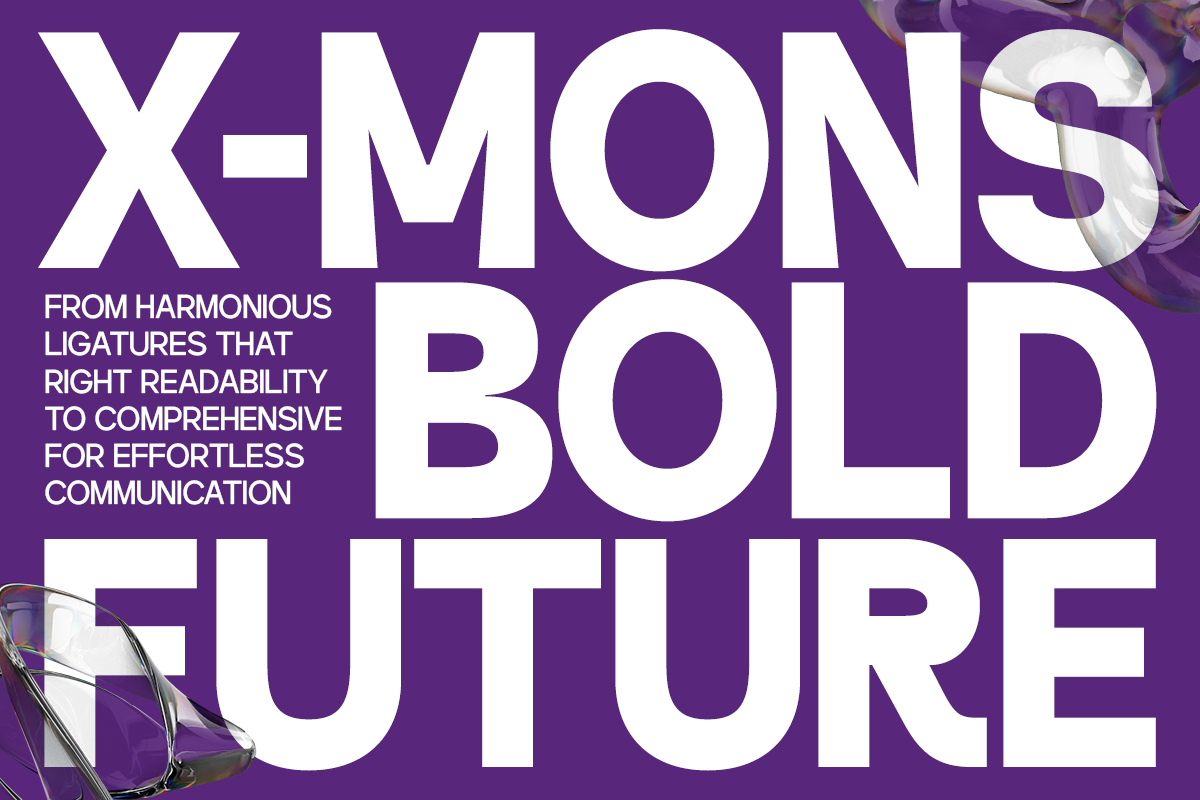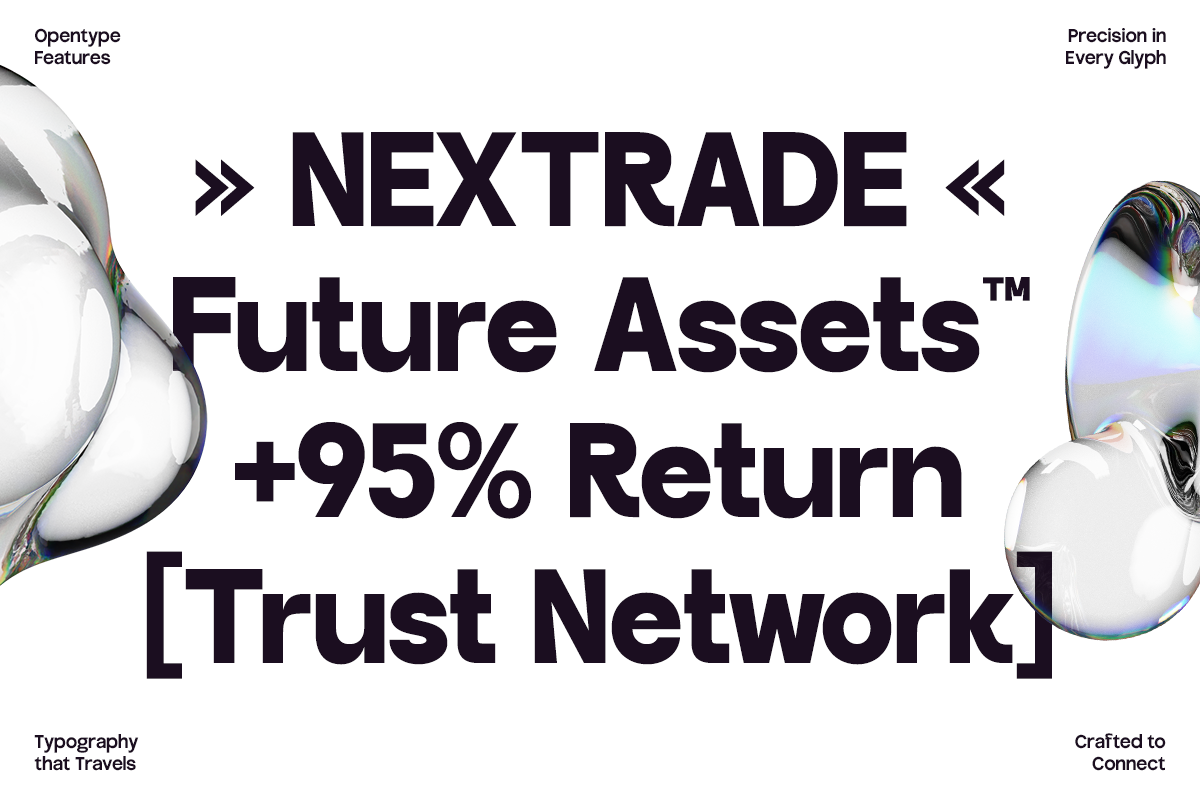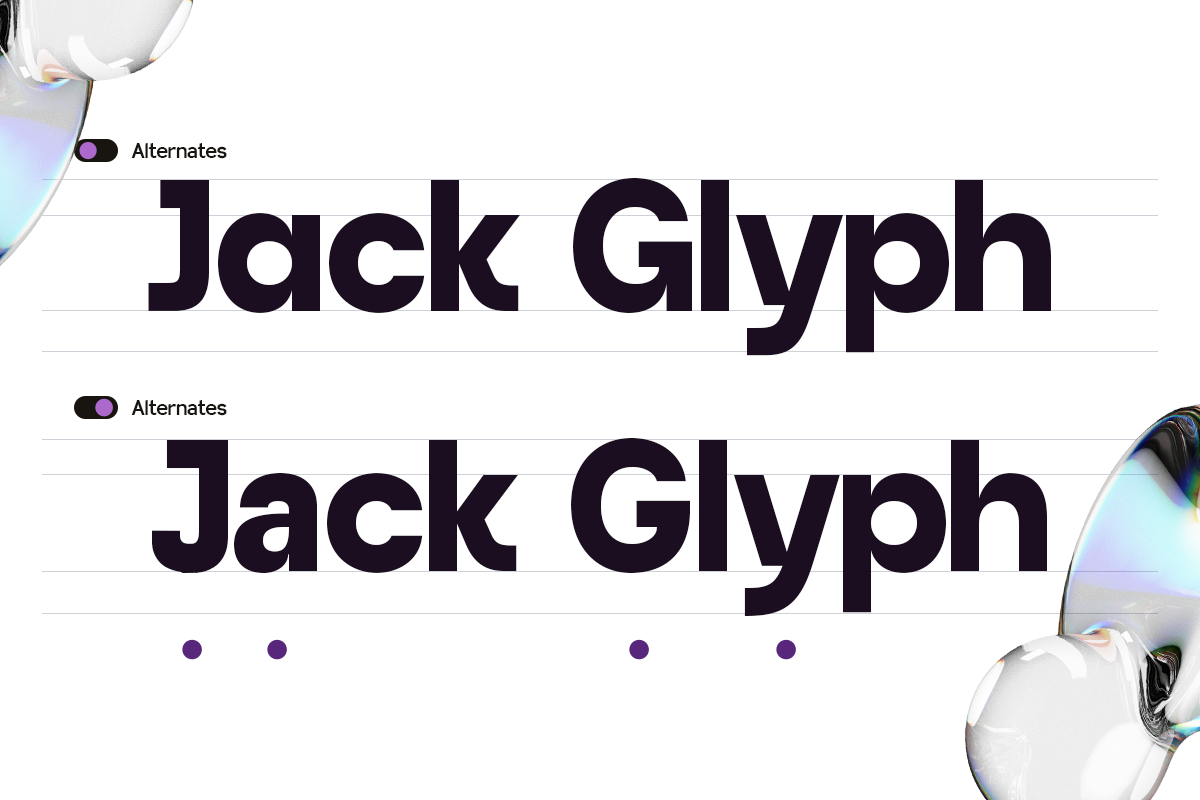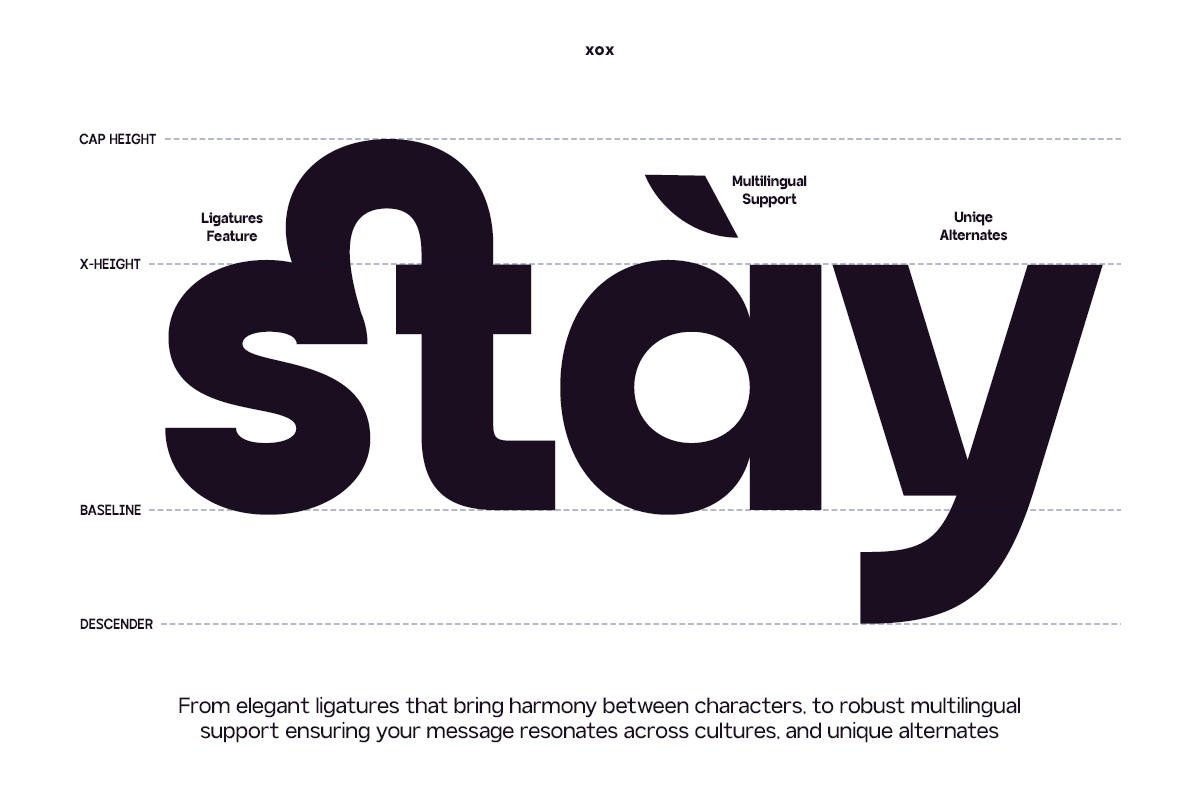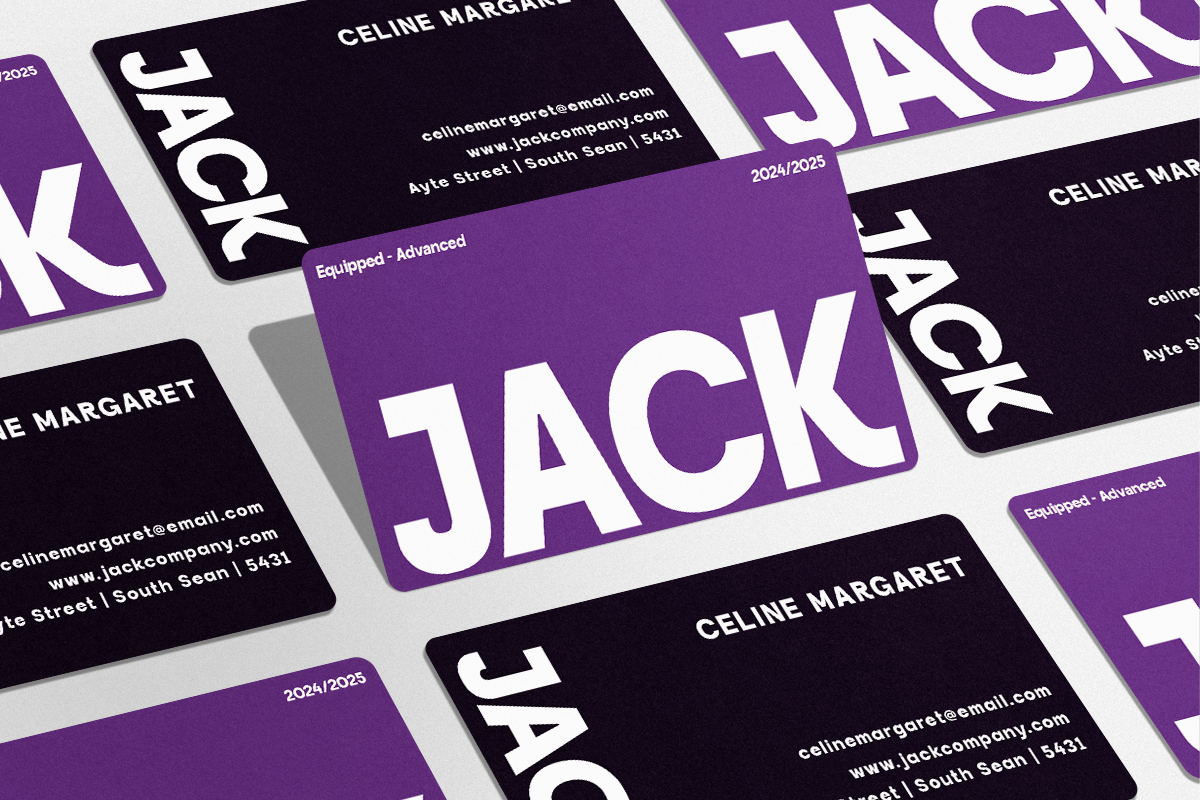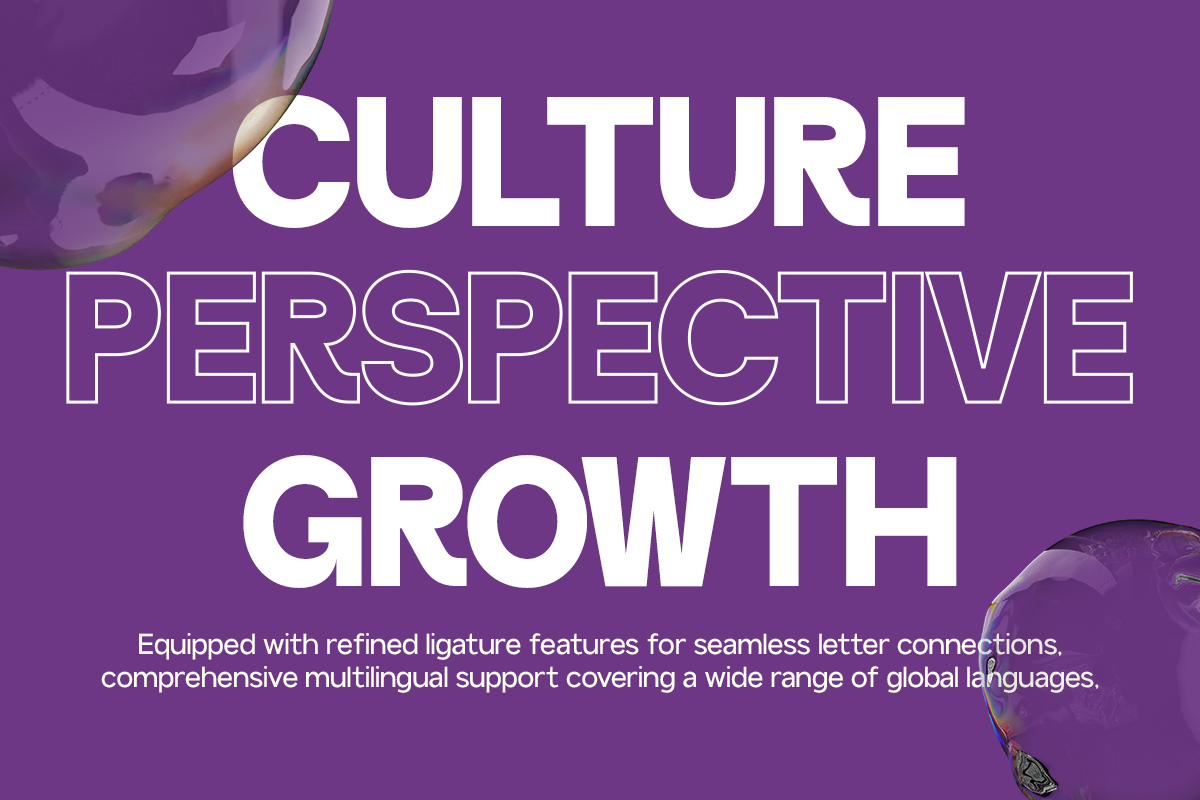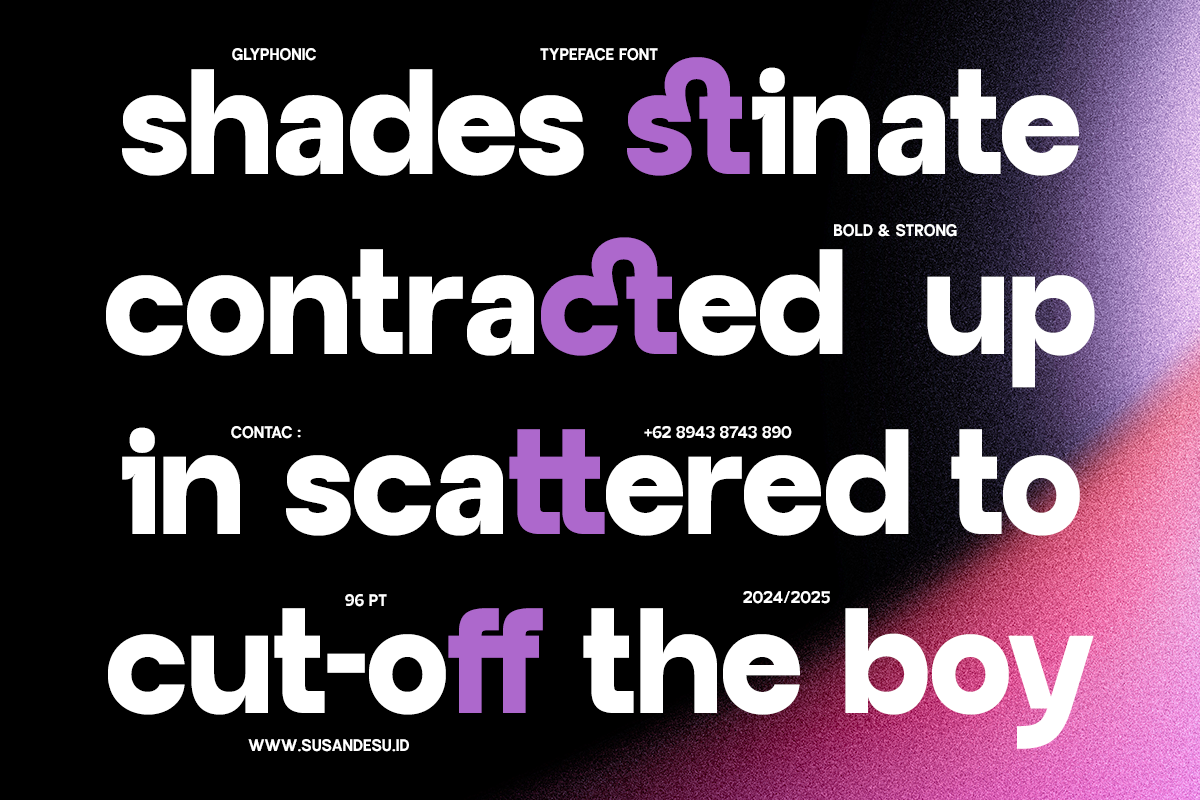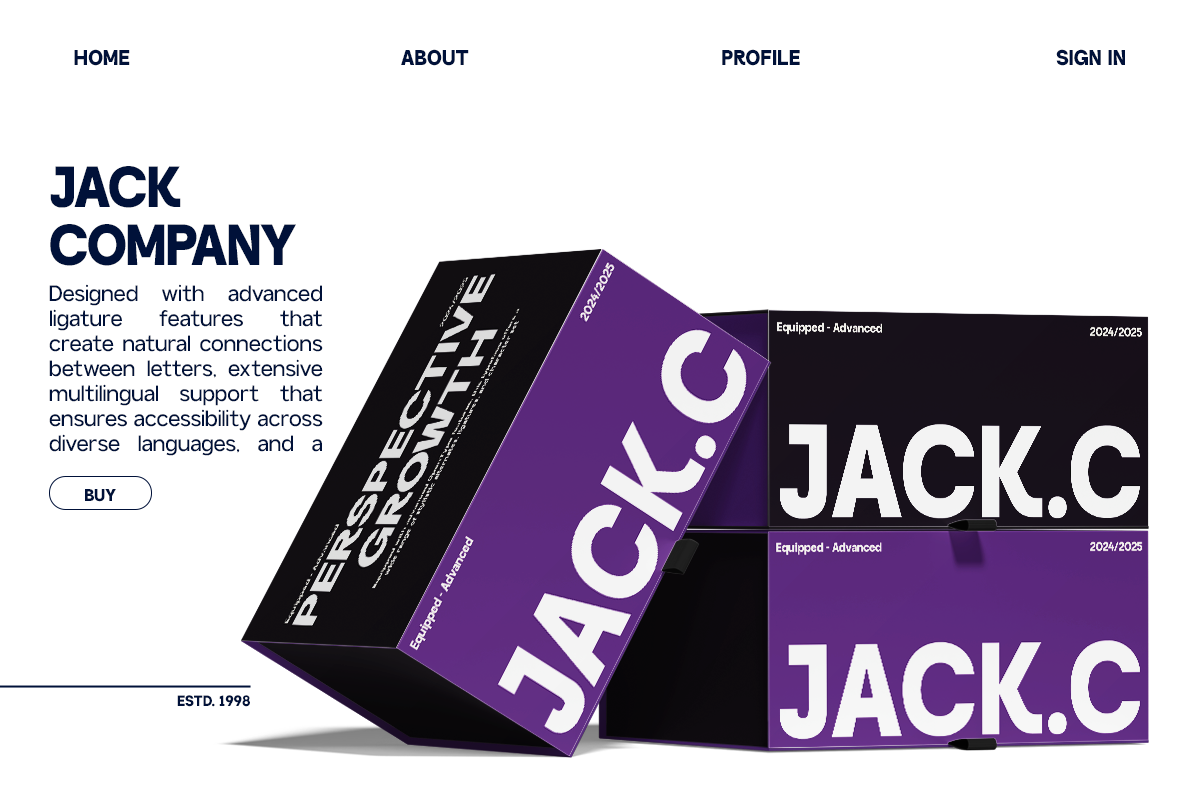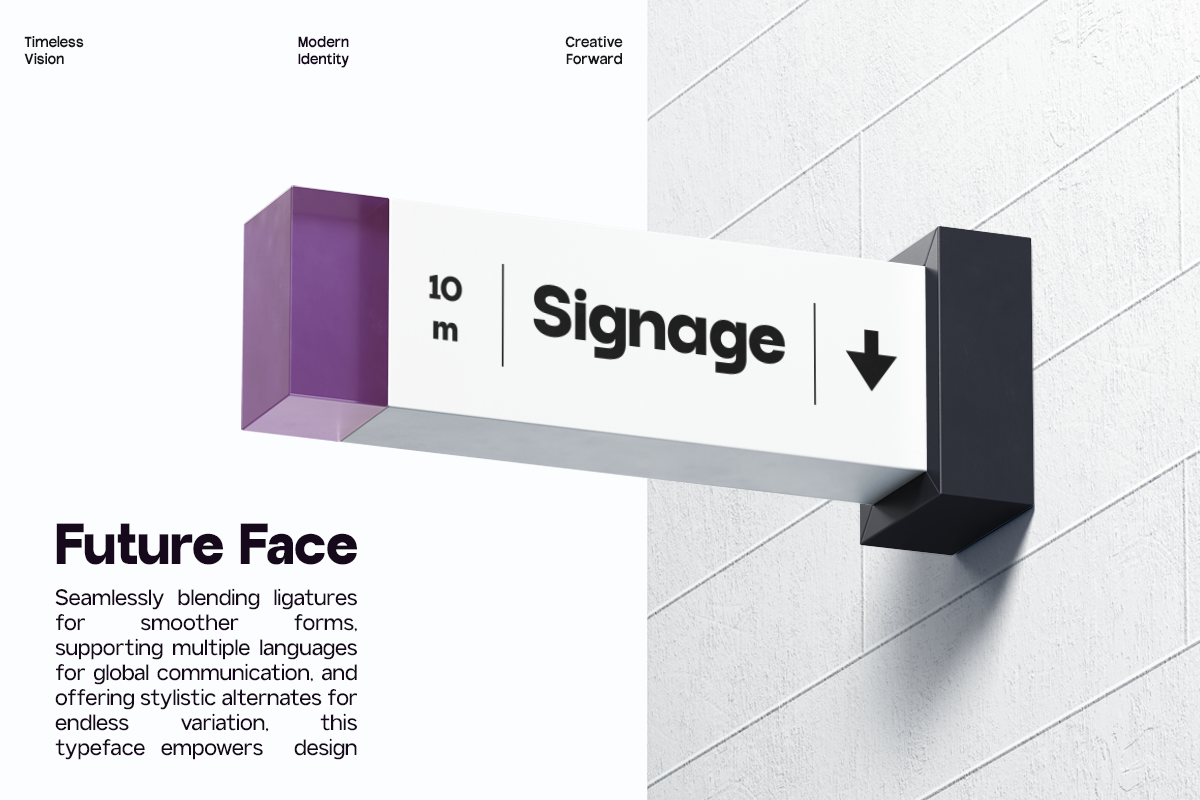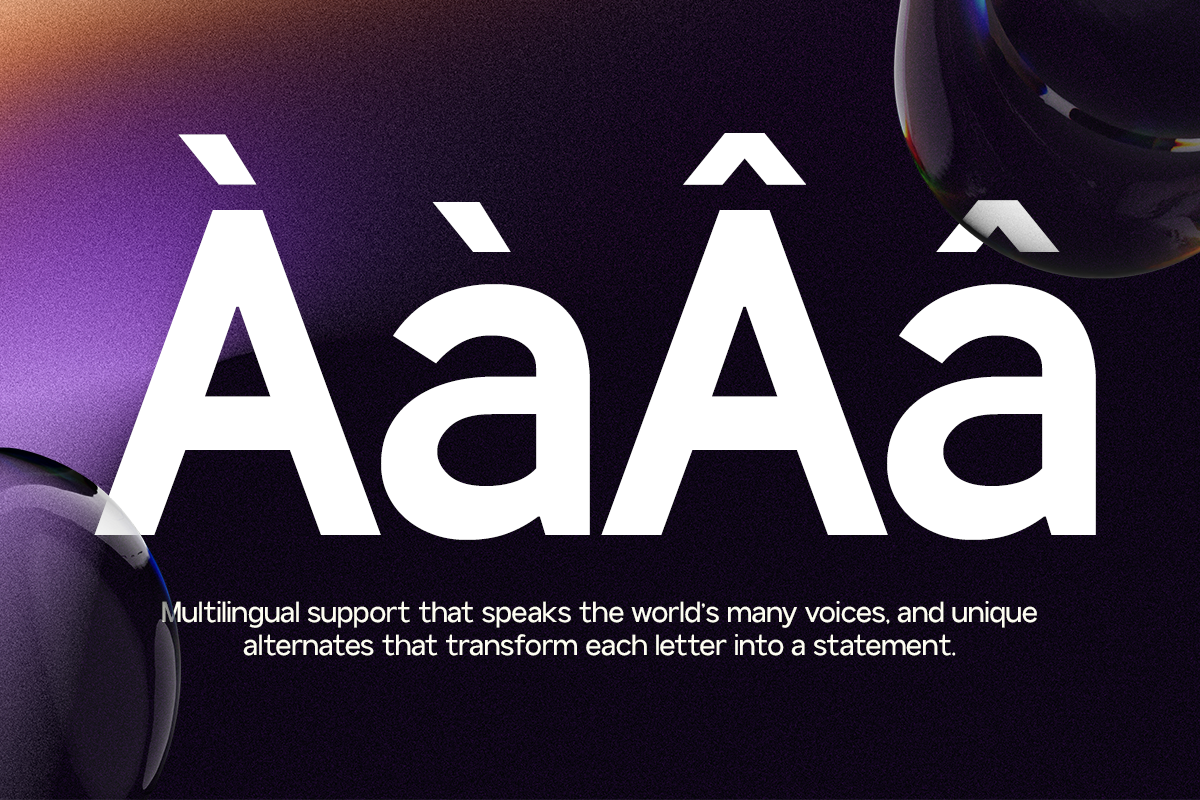
GC Volkgen – Modern Sans Serif
GC Volkgen – Where Clarity Meets Power is a modern sans serif typeface that blends sharp clarity with commanding presence. Built on clean geometric foundations and reinforced by strong strokes, it projects confidence and versatility across digital and print platforms. Striking the balance between precision and character, it’s ideal for branding, editorial design, technology-driven projects, and impactful visual identities.
With balanced proportions and refined details, GC Volkgen adapts effortlessly while maintaining a distinctive voice. From bold headlines to sleek interfaces and minimalistic layouts, this font delivers strength, clarity, and modern sophistication to any typographic work.
- Modern Geometric Construction
- Multilingual Support (170+ Languages)
Empower your design with the clarity, strength, and timeless modernity of GC Volkgen.